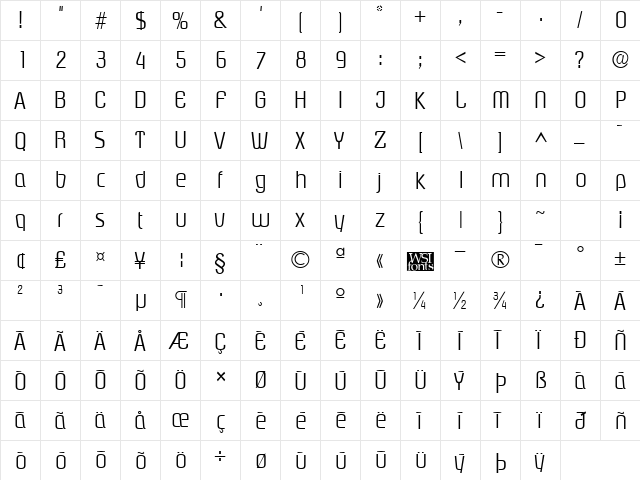
PloverLight Regular
Design Context for PloverLight Typeface
PloverLight offers clean, dependable letterforms without strong stylistic allegiance, making it a practical choice for designers who need flexibility. Its slender proportions lend an understated elegance to any composition.
Pro Tip: Use PloverLight in both headline and body roles to test its range before committing to a single application.